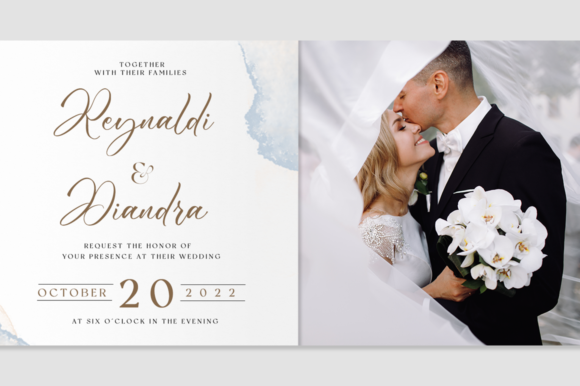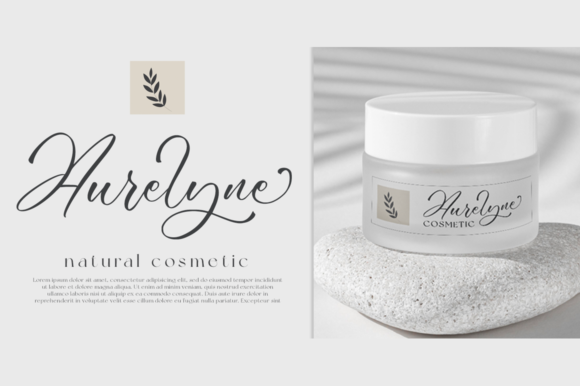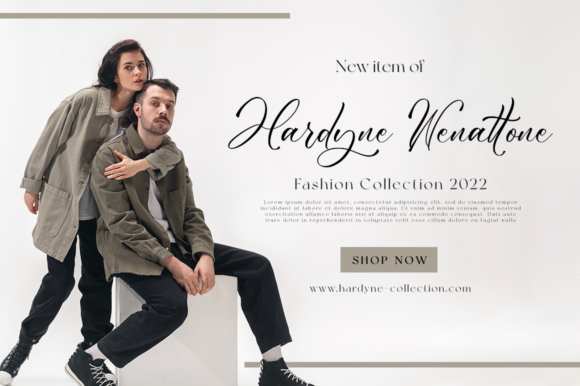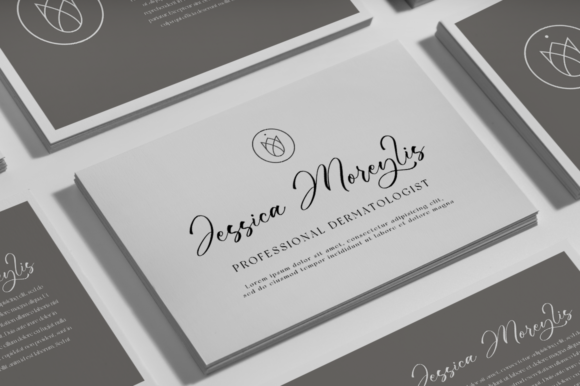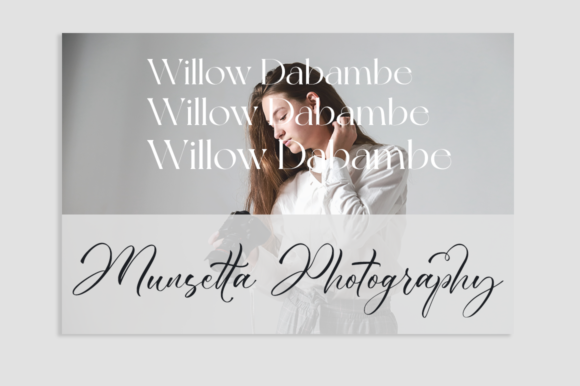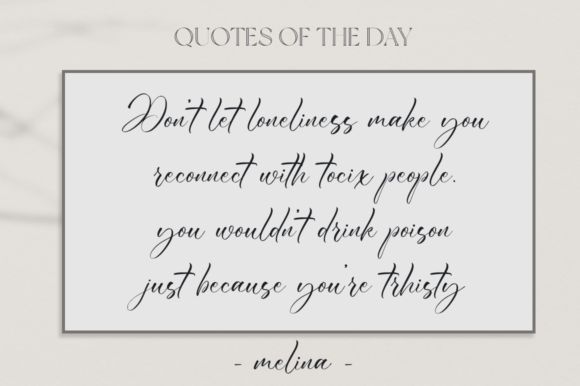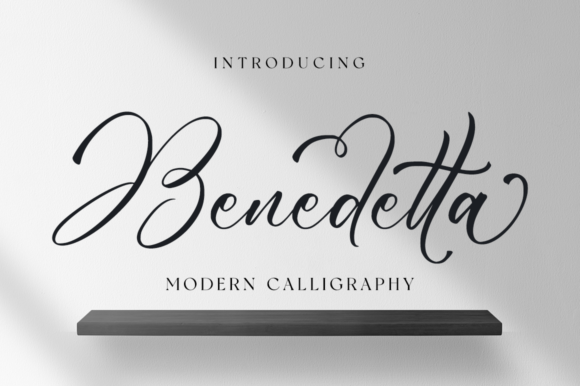
Benedetta Font: Elevate Your Designs with Elegance and Sophistication
In the world of typography, few fonts manage to capture the essence of luxury and sophistication as effortlessly as Benedetta. This beautiful, delicate handwritten font is designed to add a touch of elegance to any design project, making it a must-have for designers and crafters looking to elevate their work. With its unique feel and stunning impact, Benedetta is poised to become your go-to font for projects that demand a high level of refinement.
The Unique Charm of Benedetta
Benedetta’s charm lies in its delicate, handwritten strokes that exude a sense of luxury and refinement. Each letter is carefully crafted to create a fluid, organic feel that sets it apart from more conventional fonts. Whether you’re working on a branding project, a wedding invitation, or a packaging design, Benedetta’s unique character is sure to leave a lasting impression.
Benedetta Font Example
One of the standout features of Benedetta is its PUA (Private Use Area) encoding. This means that you can easily access all the amazing glyphs and ligatures that make this font so special. With PUA encoding, you can unlock the full potential of Benedetta and take your designs to the next level. No more tedious searching for the perfect character or struggling with complicated font combinations – Benedetta’s PUA encoding makes it easy to get the look you want.
Benedetta is a versatile font that is perfect for a wide range of design projects. Whether you’re a professional designer or a crafter looking to add a personal touch to your work, Benedetta has everything you need to create stunning designs. From elegant wedding invitations and sophisticated business cards to eye-catching packaging and beautiful branding, Benedetta is the perfect choice for anyone looking to add a touch of luxury to their designs.
Key Features of Benedetta
• Beautiful and delicate handwritten font: Benedetta’s unique feel and stunning impact make it perfect for designs that demand a high level of elegance and sophistication.
• PUA encoded: Easily access all the amazing glyphs and ligatures that make Benedetta so special.
• Luxury spark: Add a touch of refinement and sophistication to any design project with Benedetta.
• Versatile: Perfect for a wide range of design projects, from wedding invitations and business cards to packaging and branding.
Why Choose Benedetta?
With so many fonts to choose from, why should you choose Benedetta? The answer lies in its unique combination of elegance, sophistication, and versatility. Whether you’re looking to create a stunning branding project or a beautiful wedding invitation, Benedetta has everything you need to make your design shine. Plus, with its PUA encoding, you can easily access all the glyphs and ligatures you need to take your design to the next level.